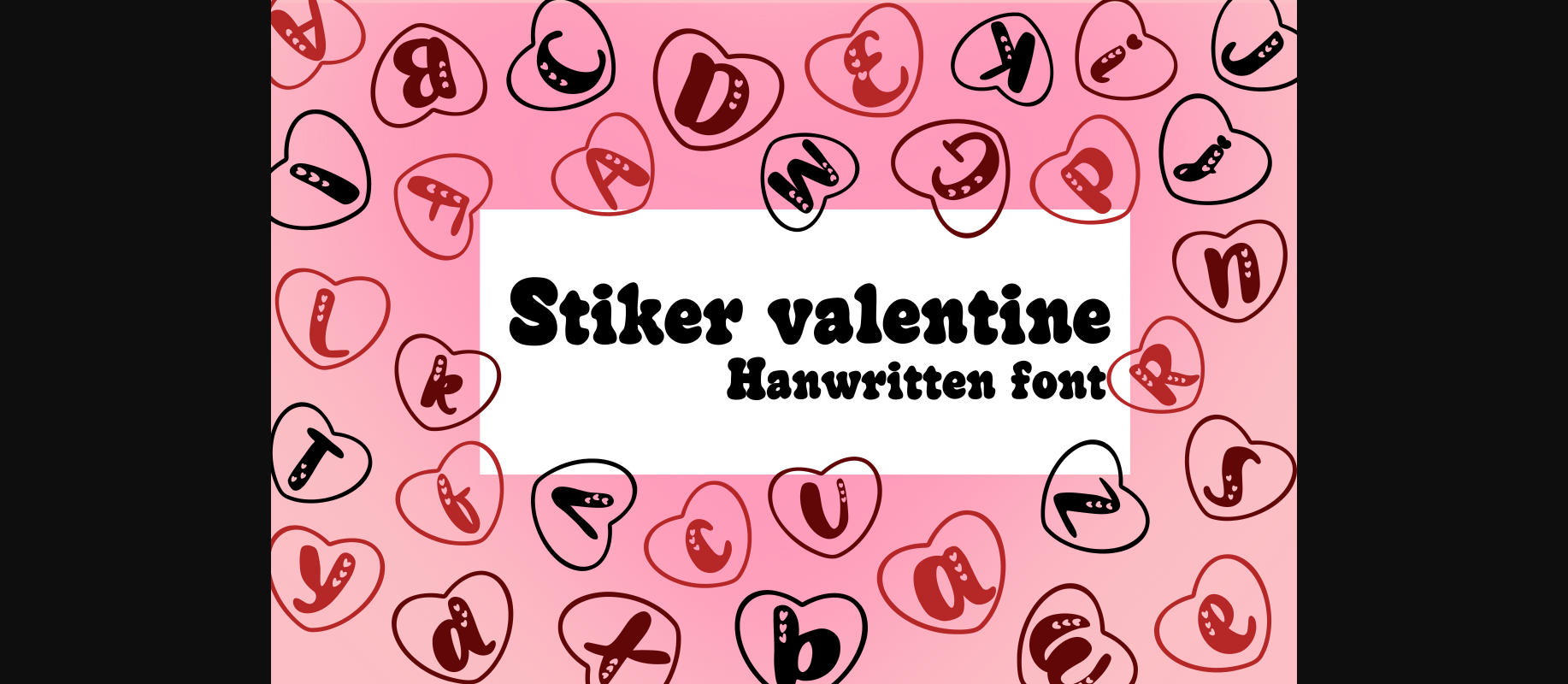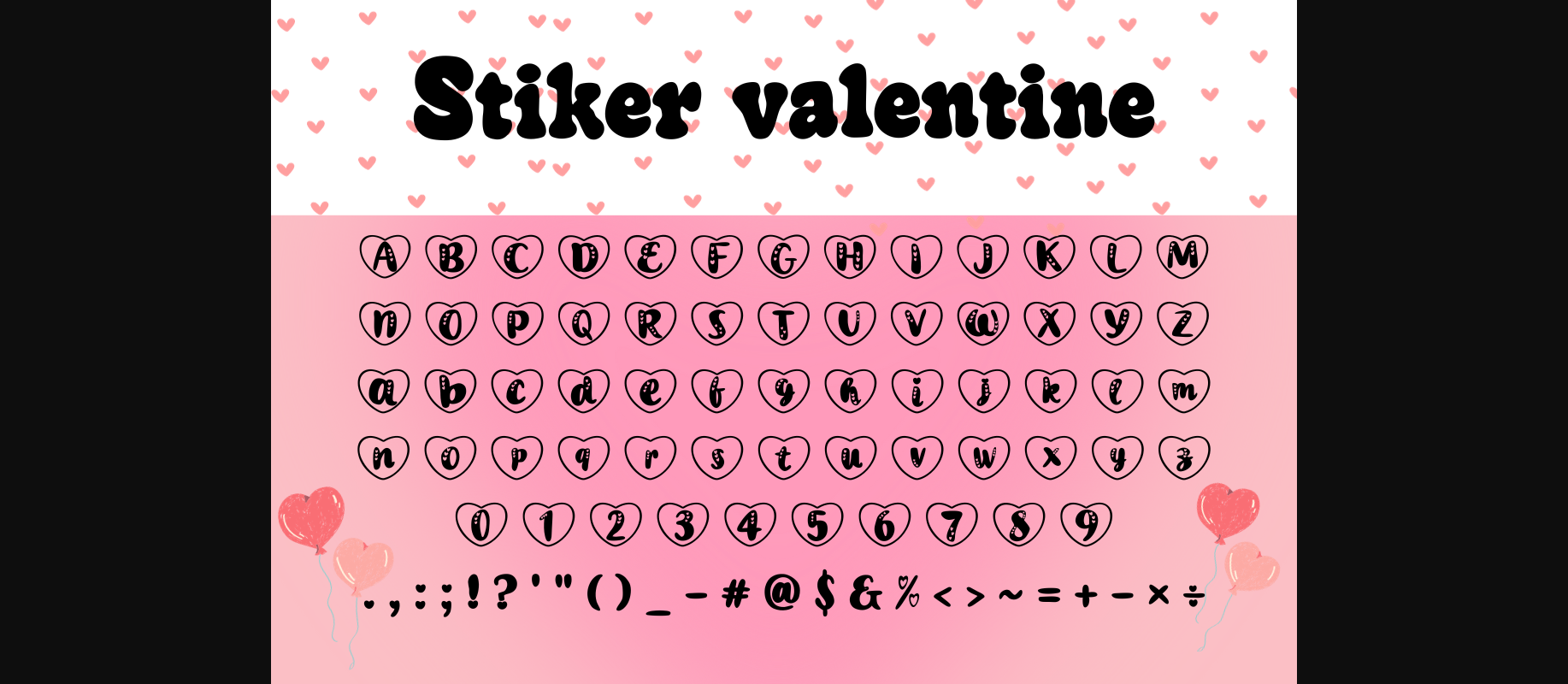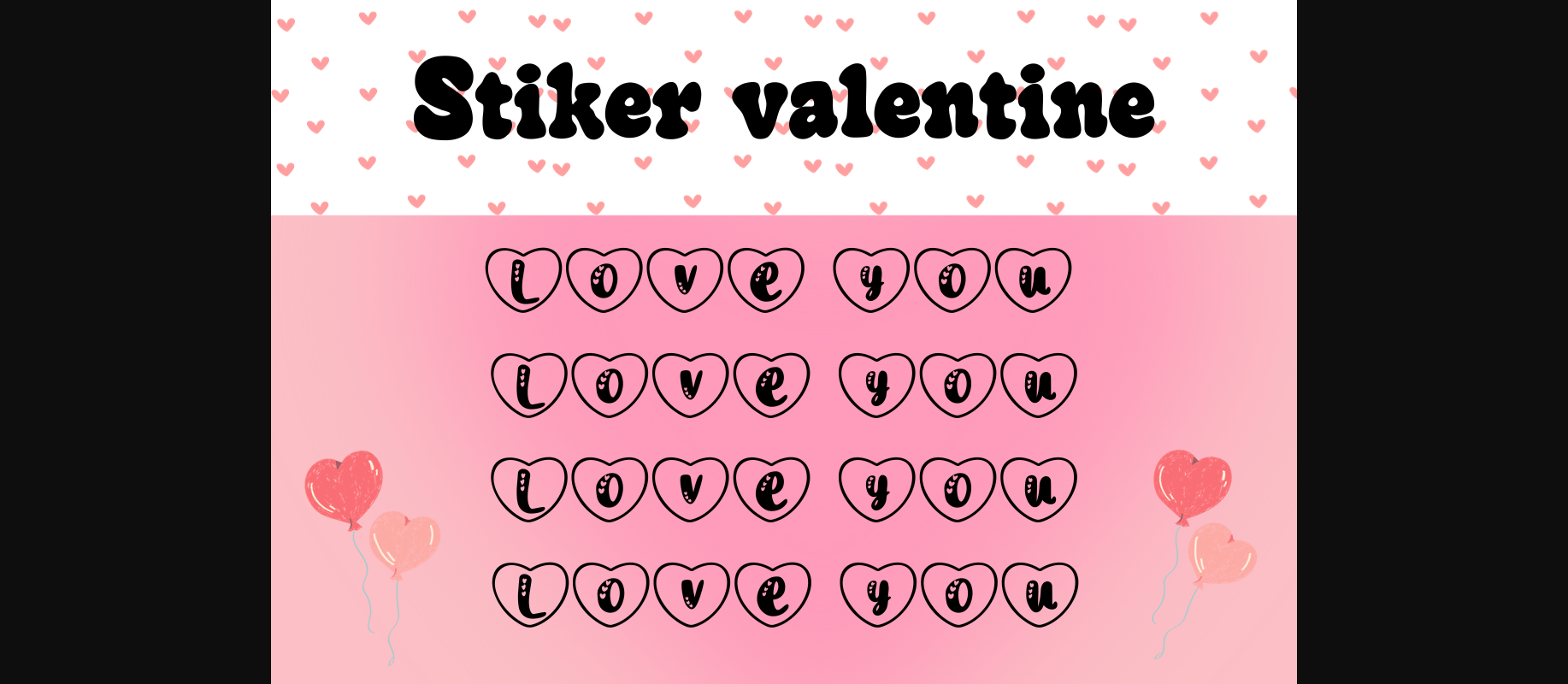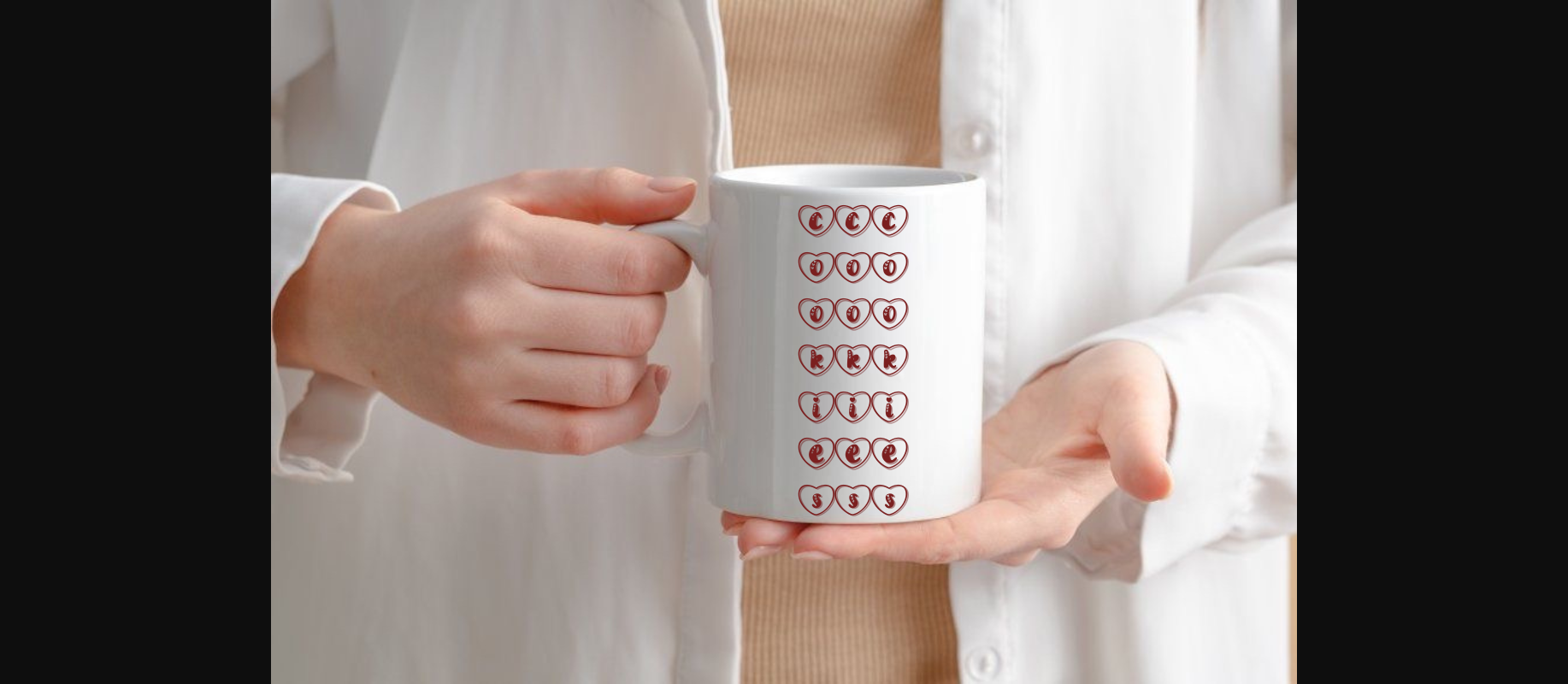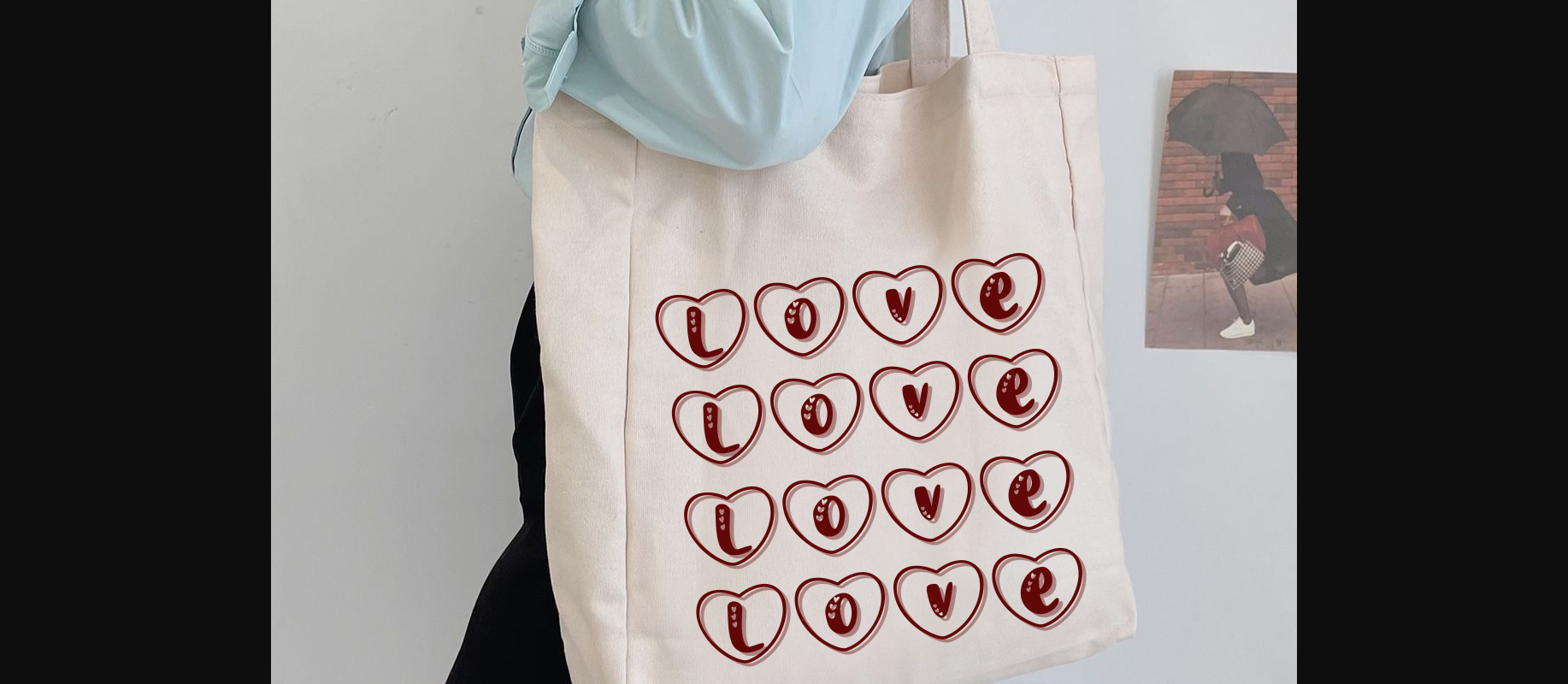
Stiker Valentine Font
About Stiker Valentine Font
Stiker Valentine is a delightful decorative font that turns letters into hearts, adding a sweet touch to your projects. Perfect for expressing love and affection, this charming font is great for creating Valentine’s Day messages, romantic notes, or any design where a touch of love is needed. Let your text speak from the heart with Stiker Valentine, a playful and heartwarming choice for adding a dash of love to your creative endeavors.